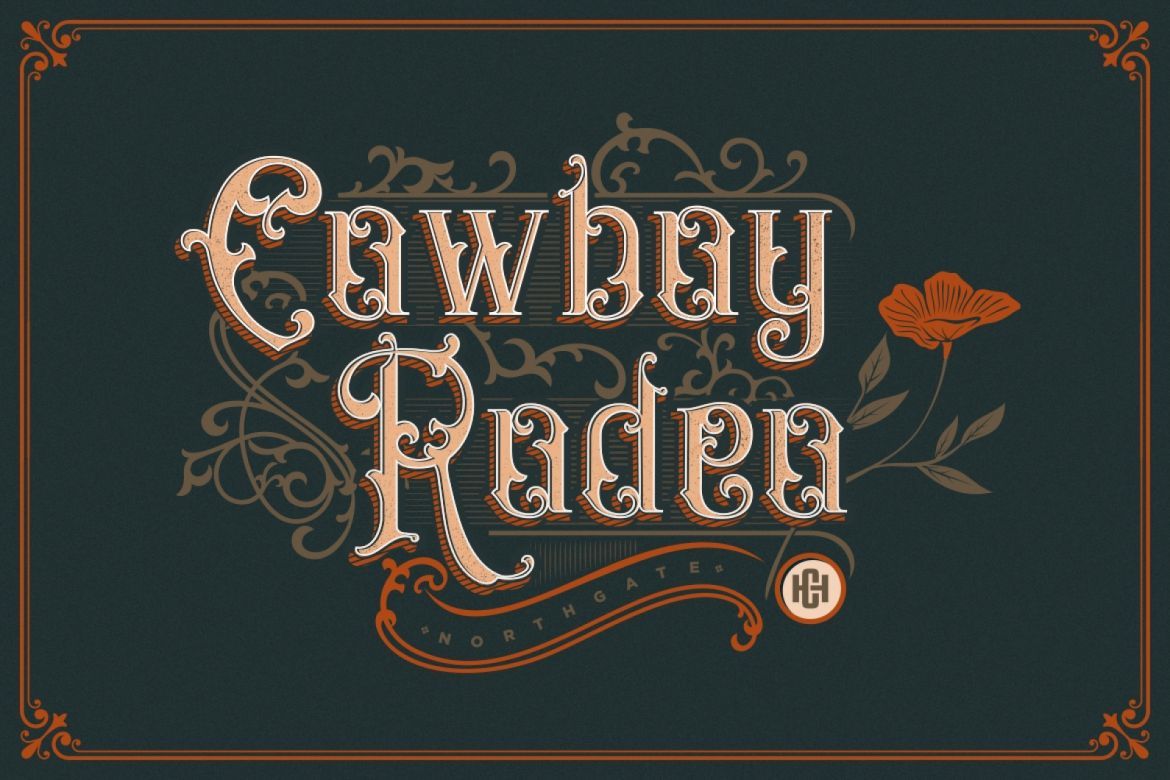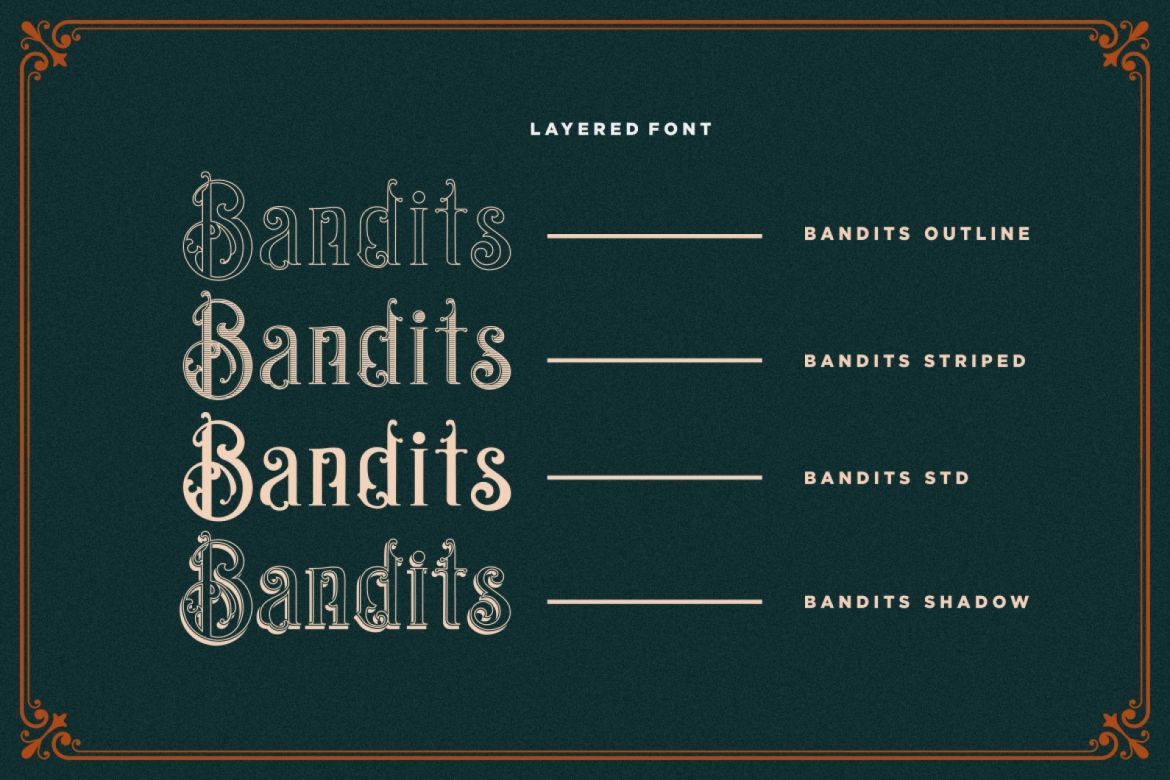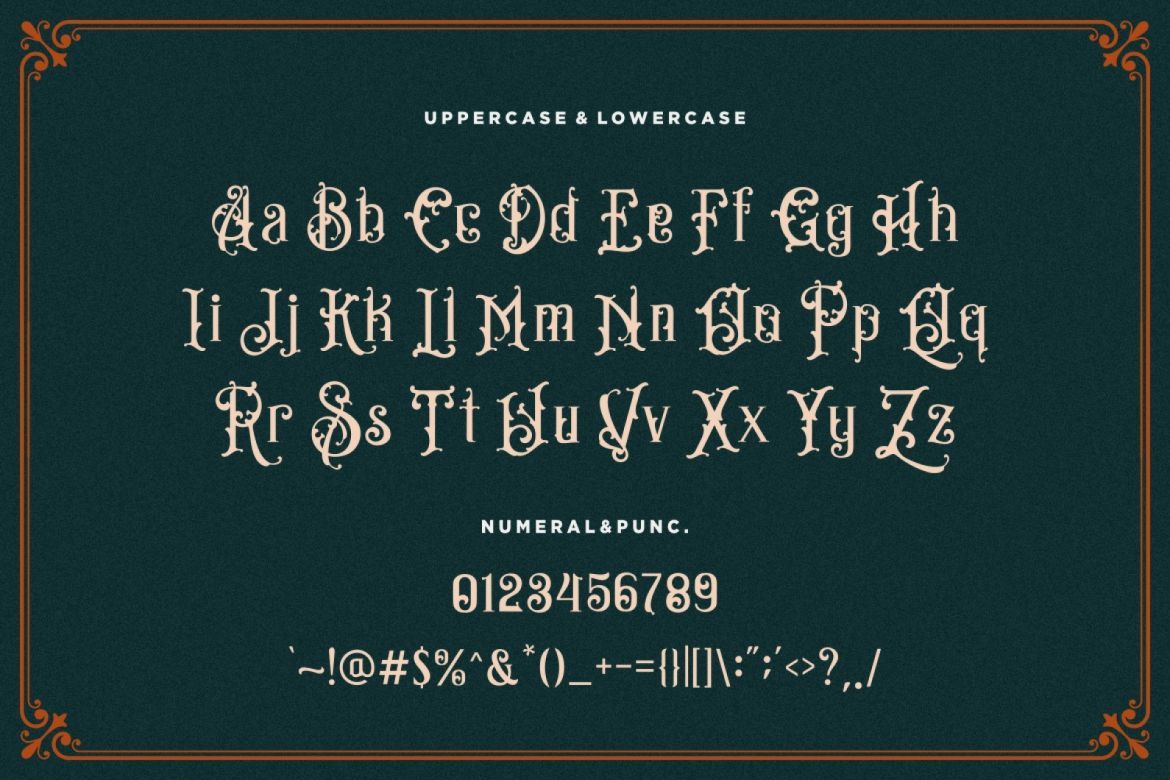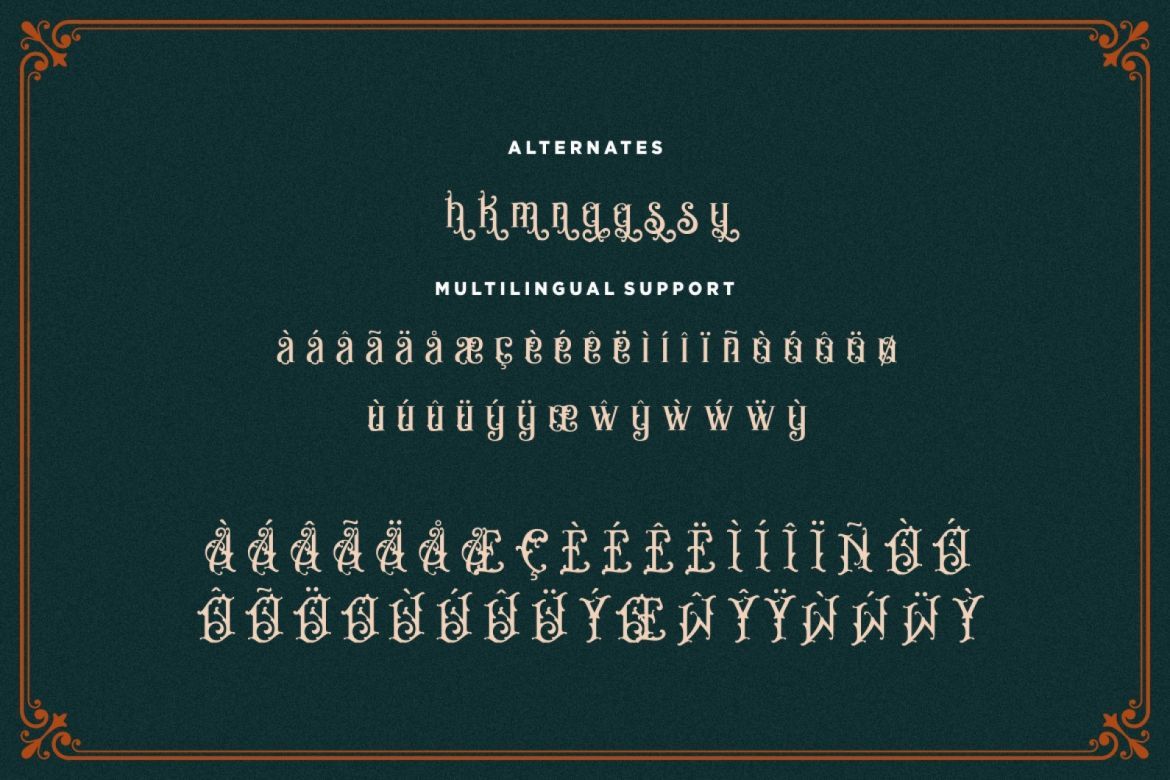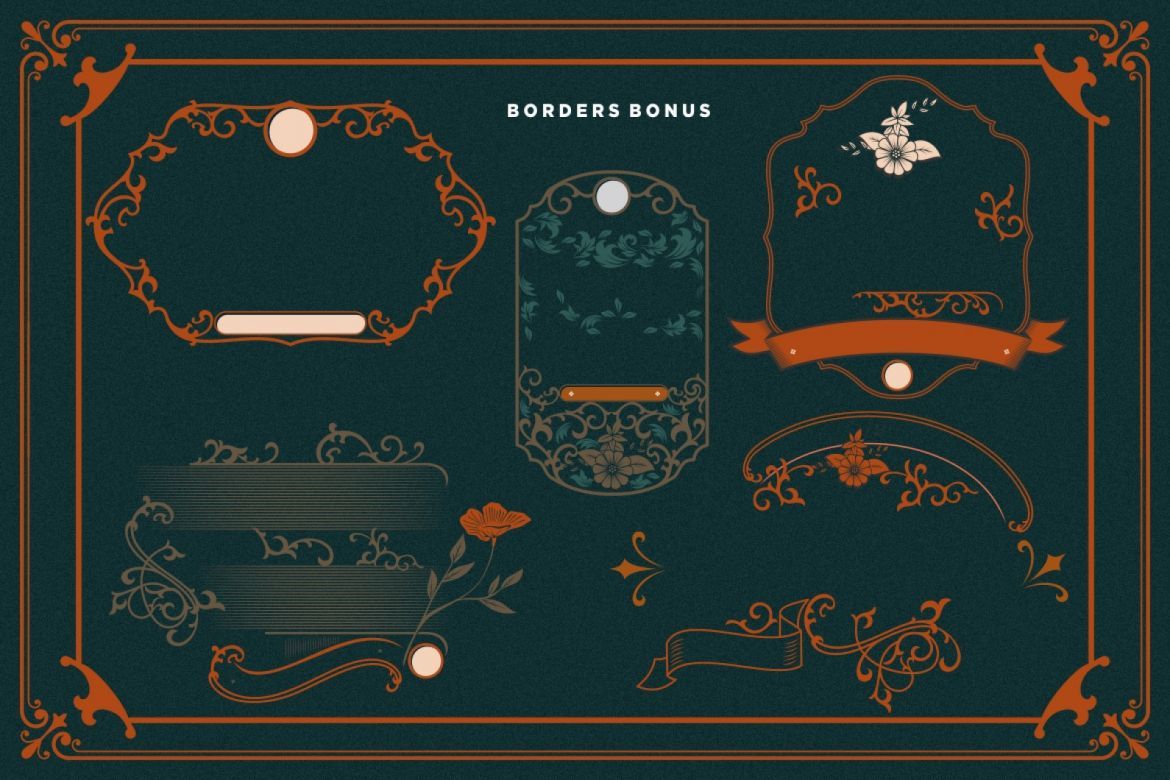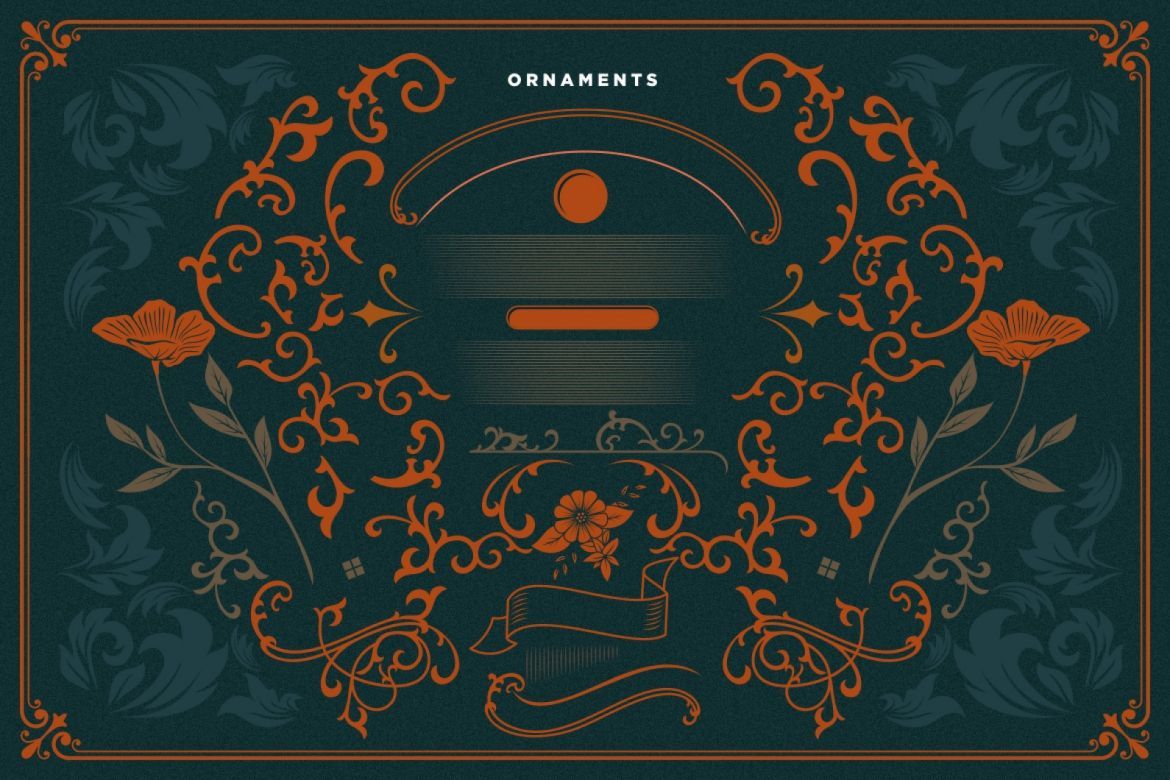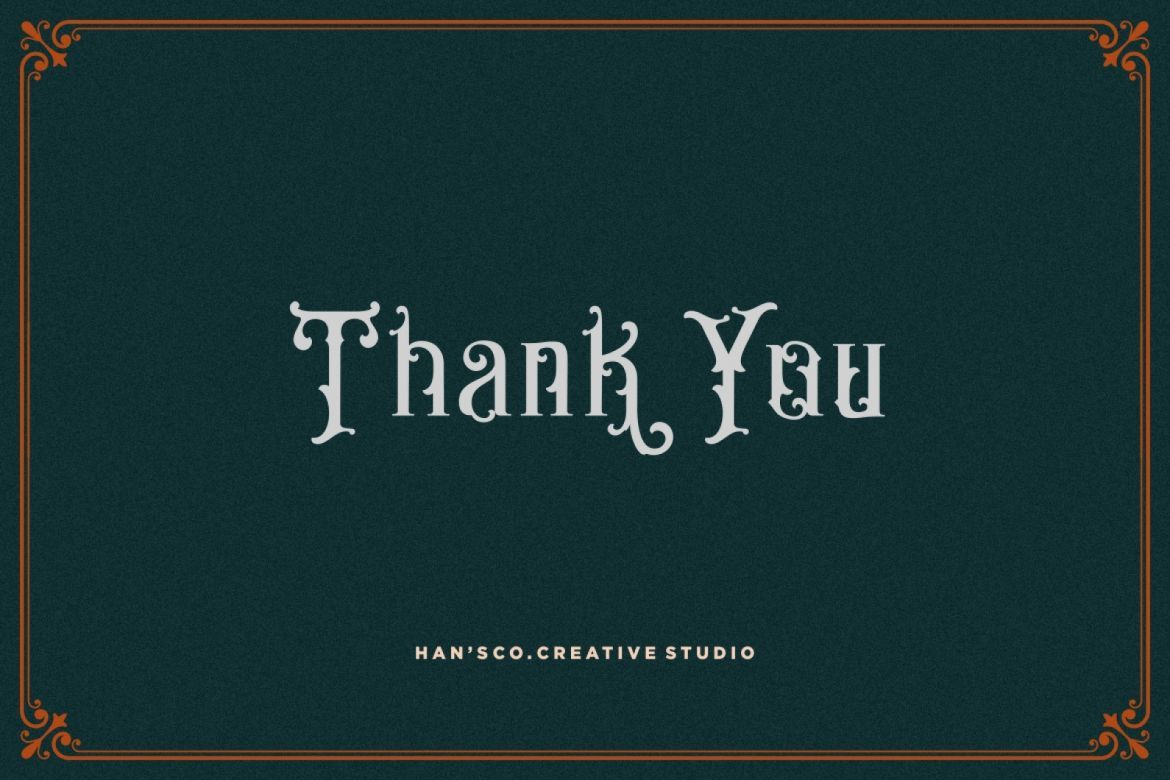
Bandits Layered Font
BANDITS FONT — Bandits is a Vintage typeface font. This collection of font is perfect for personal branding or everything your project with vintage, retro, wild or organic style. It was made with the intention of being used for product Logo like a coffee brand or packaging label.
• available in 4 font style
• include bonus ornament vector